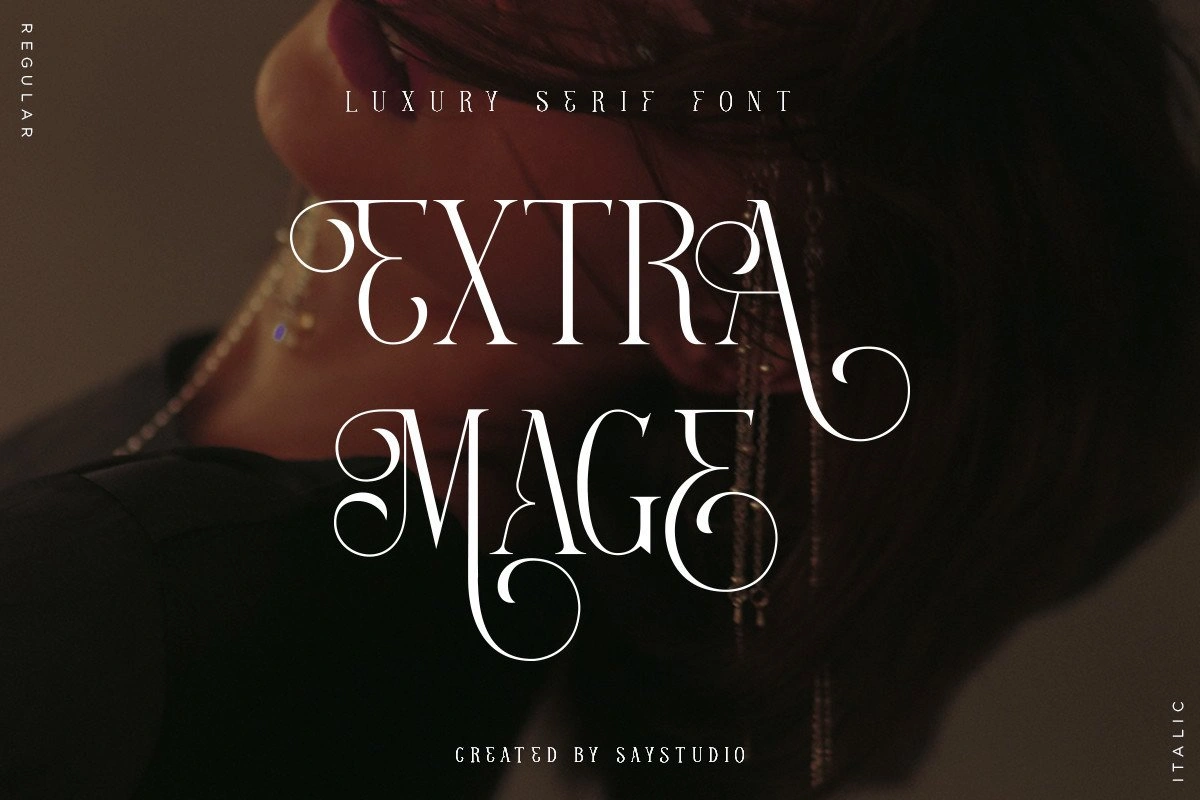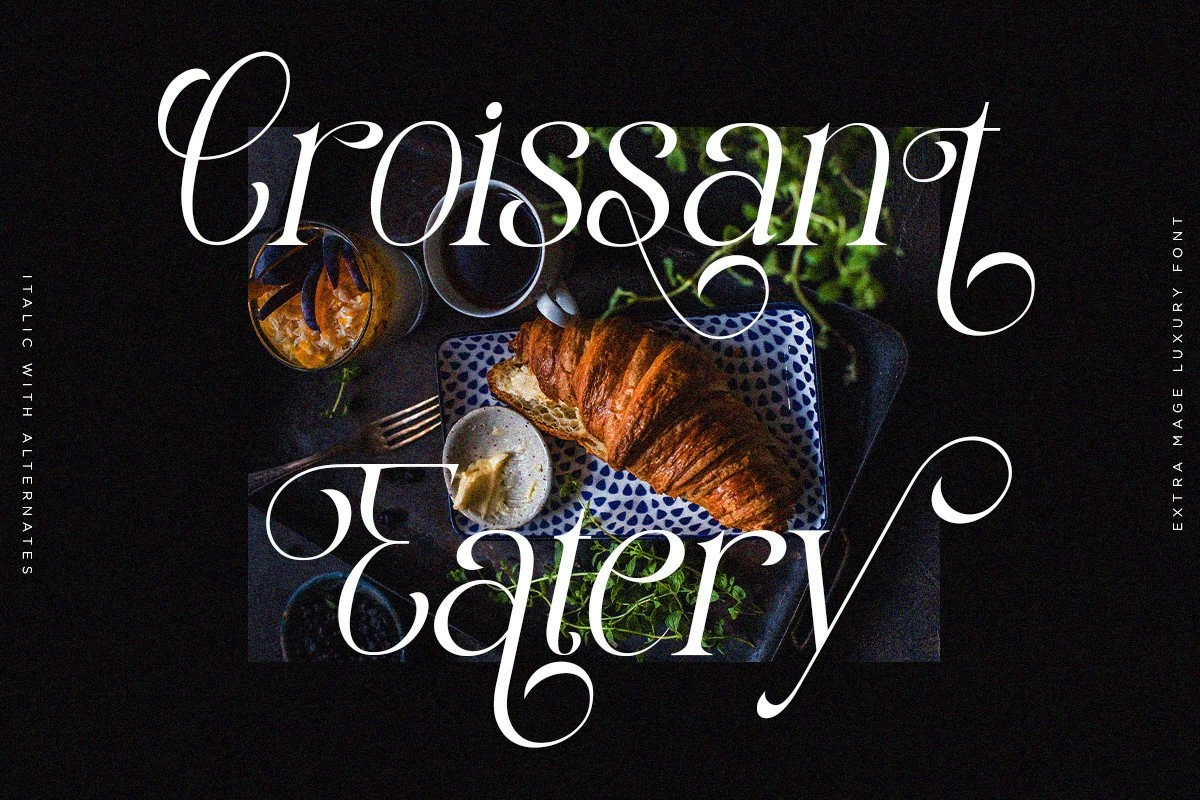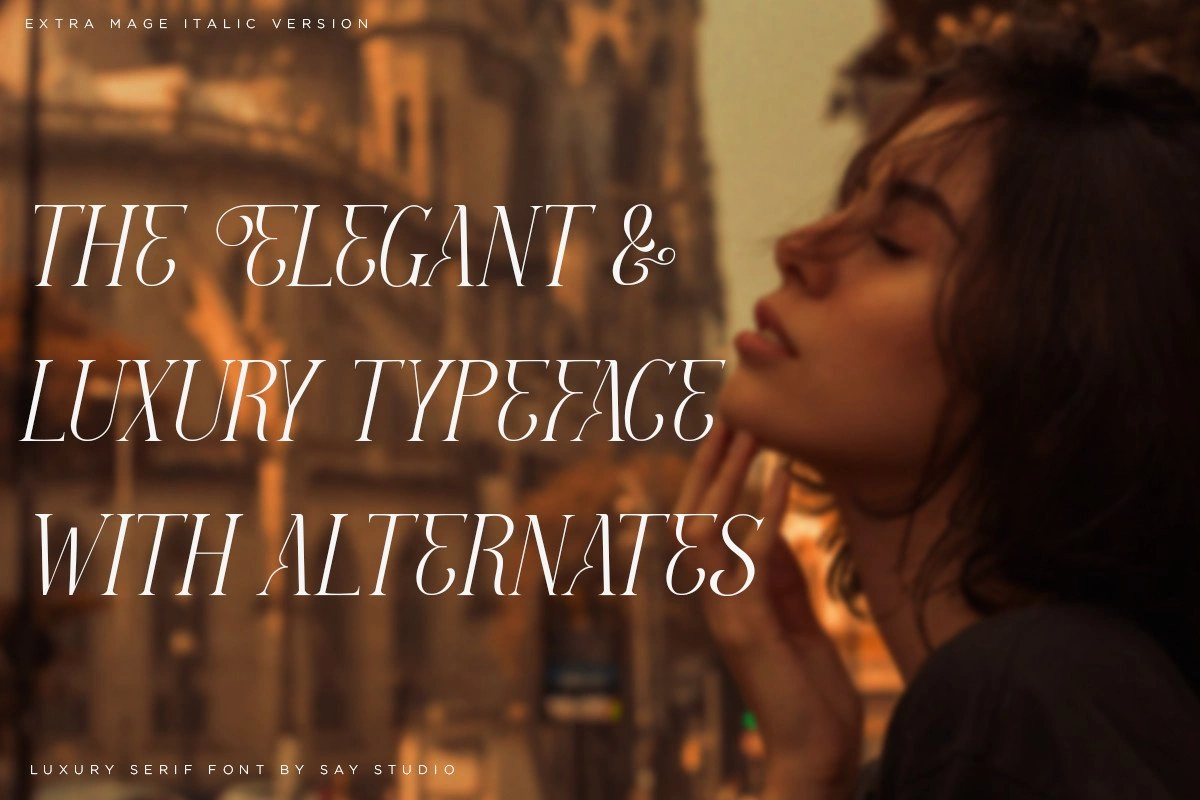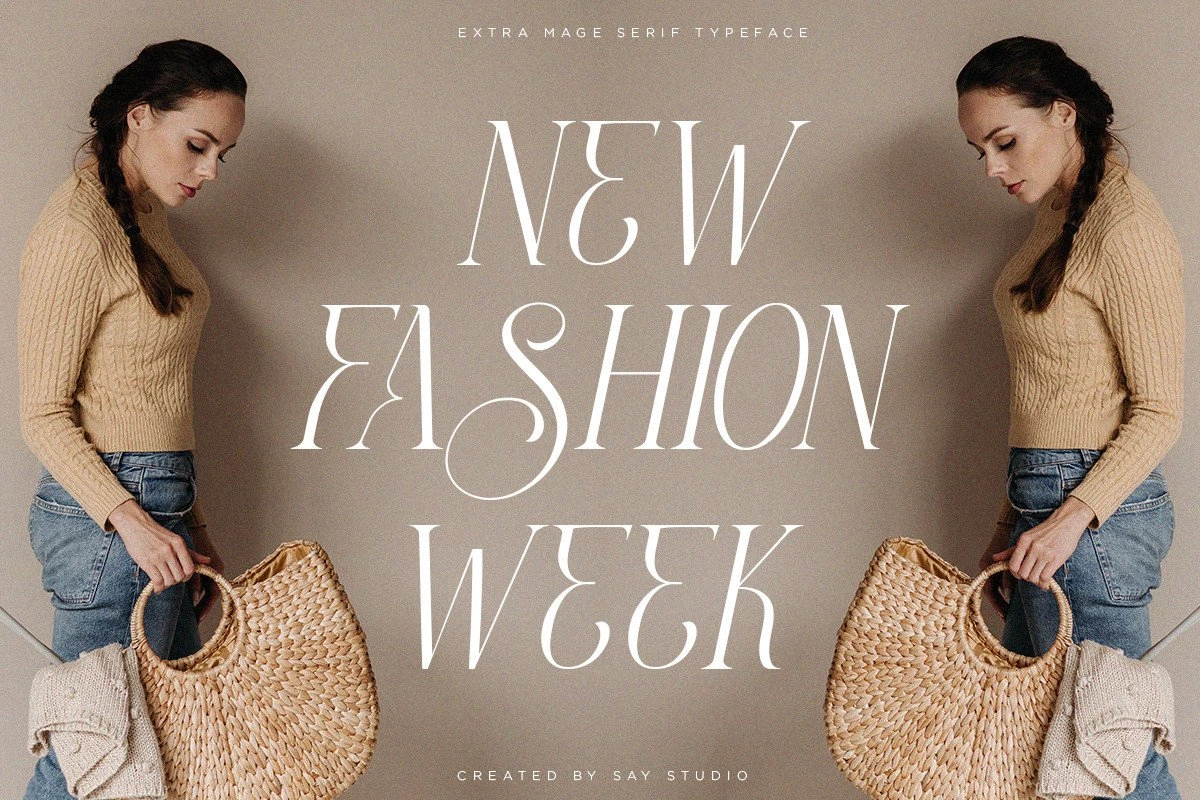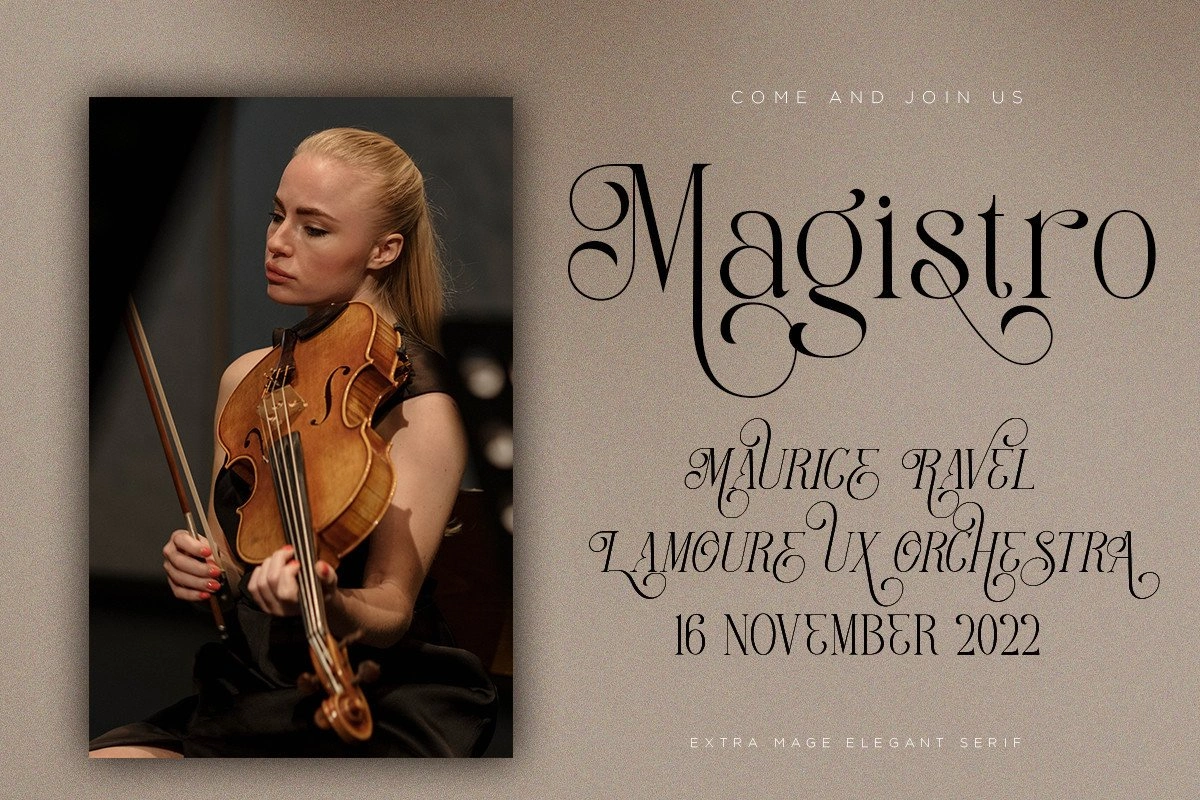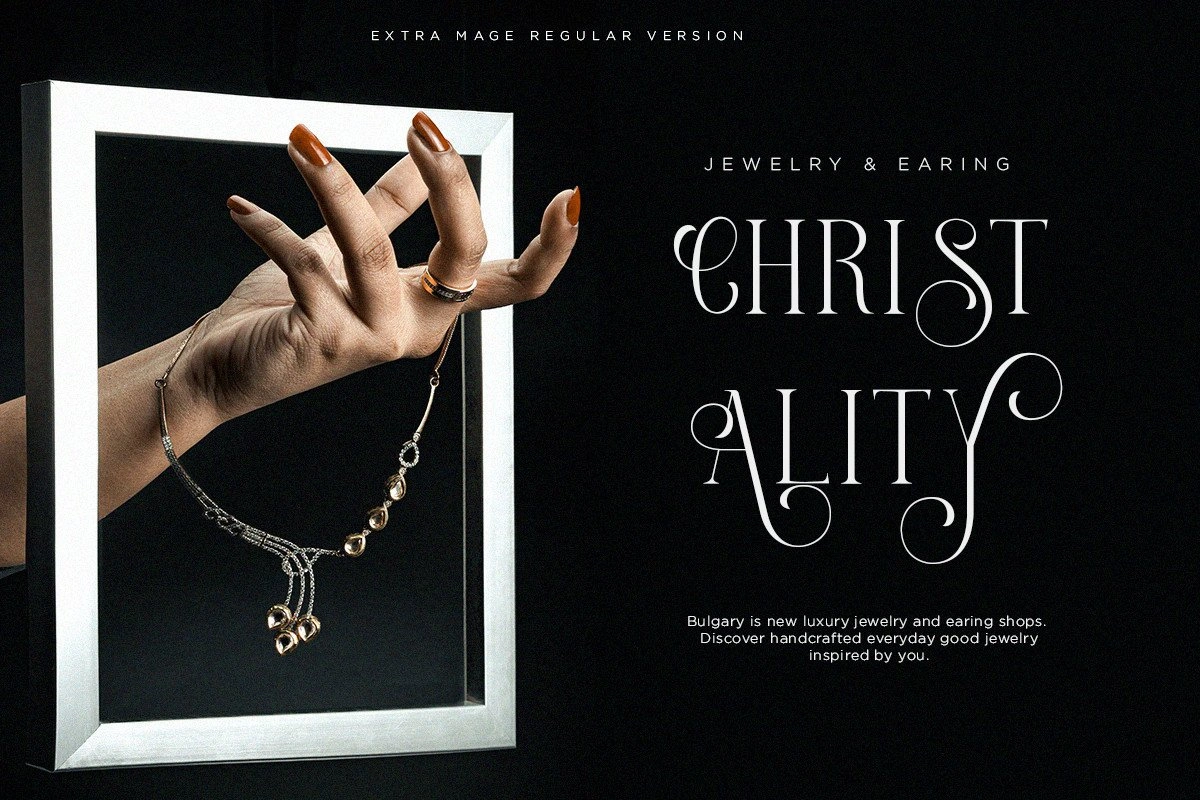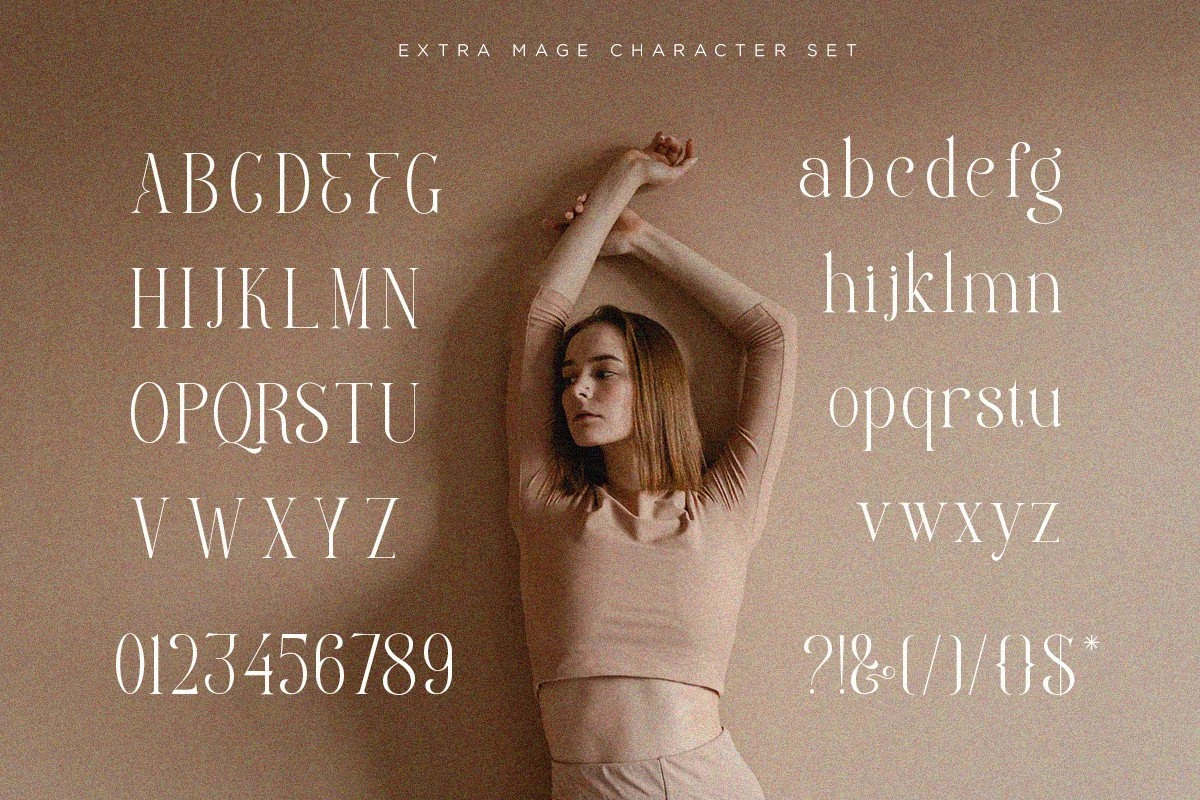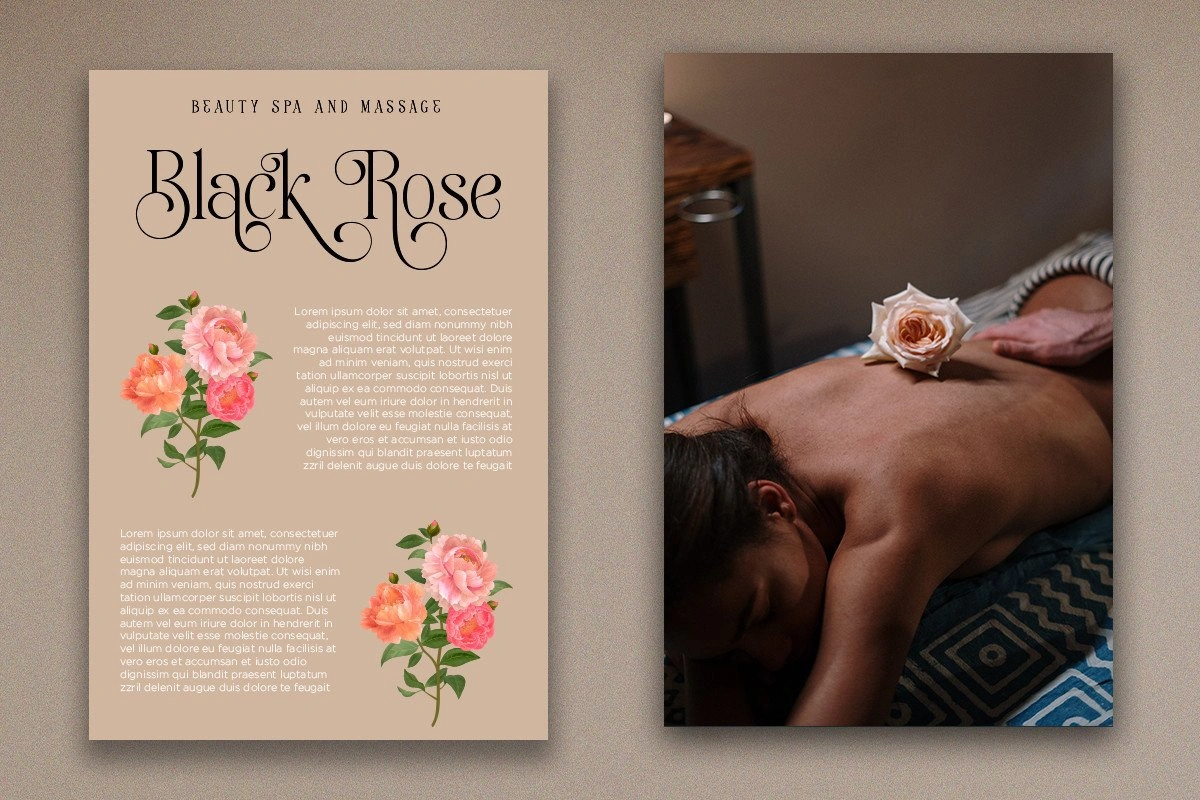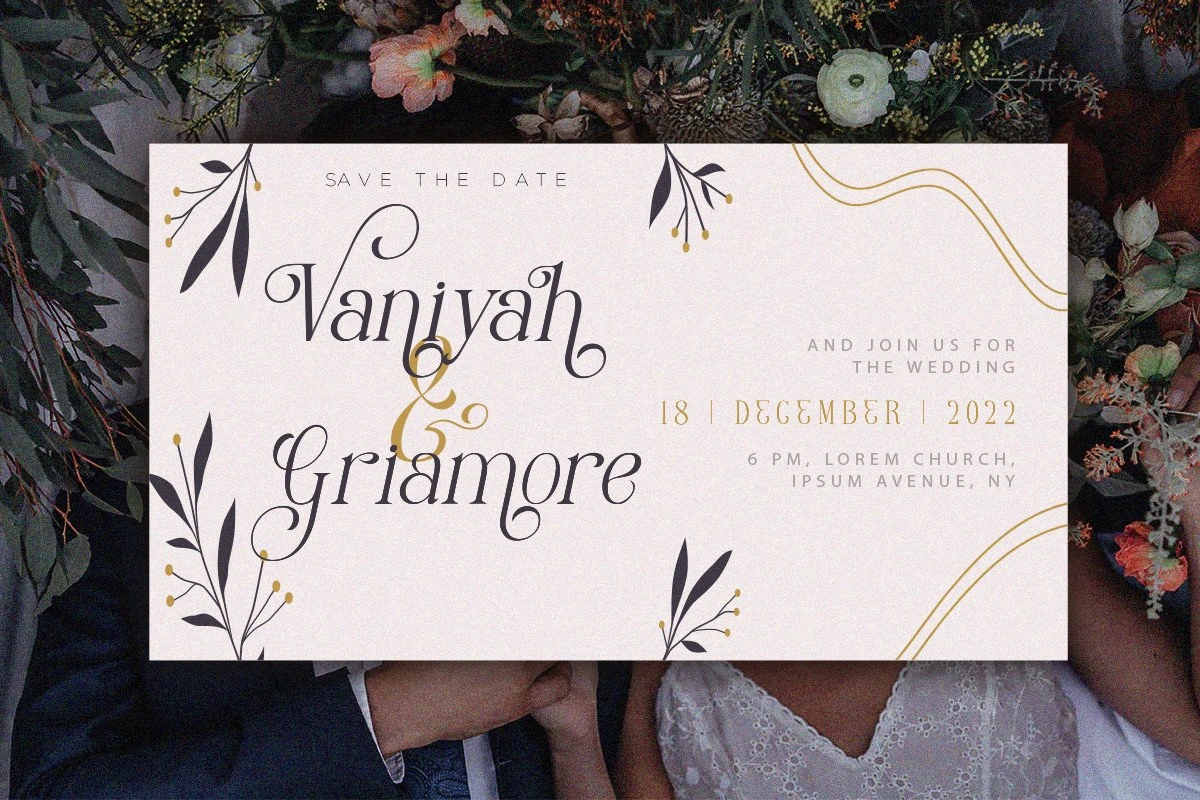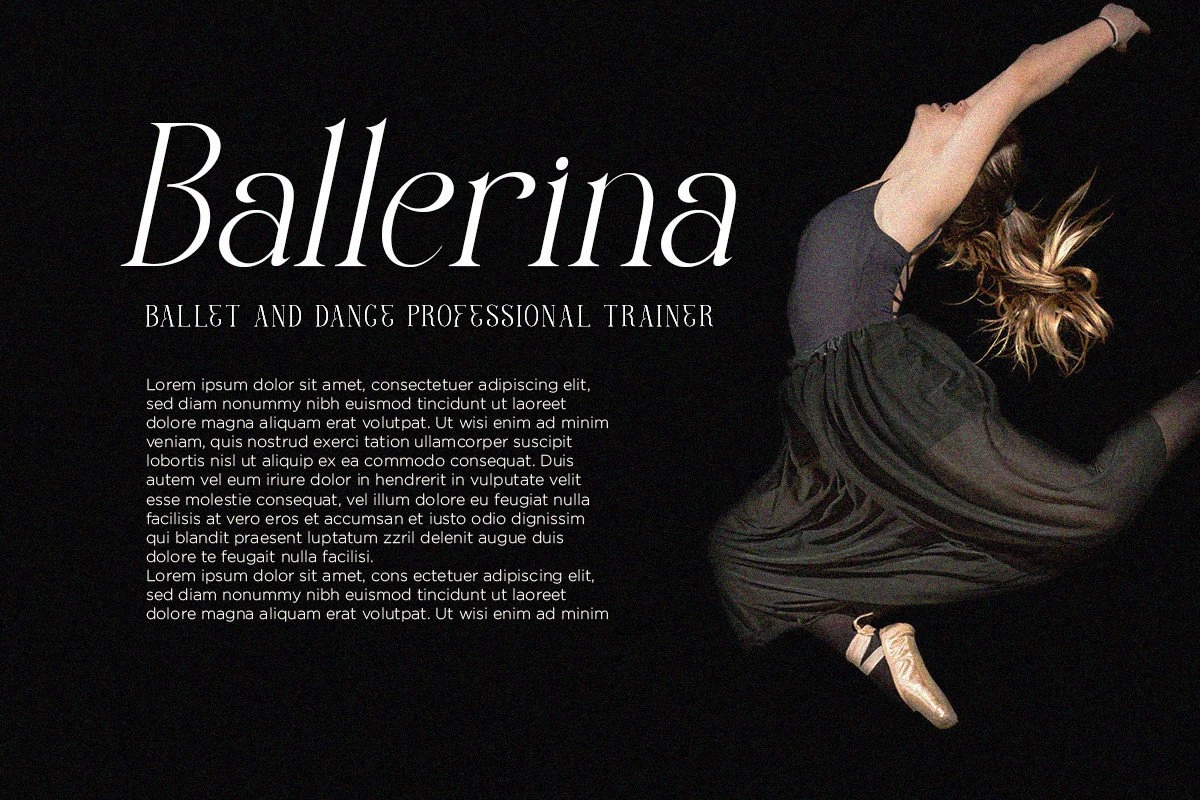
Extra Mage-Luxury Serif Font
Extra Mage is a fancy font with a lot of ties to it. with great detail. This font is perfect for your work to make it look elegant and luxurious. Give it a feminine and masculine quality. It comes with 87 Unique Alternates. Great in layout design for quotes or body copy, best used as a display for headings, logos, branding, magazines, product packaging and invitations.
- 87 Alternates Type